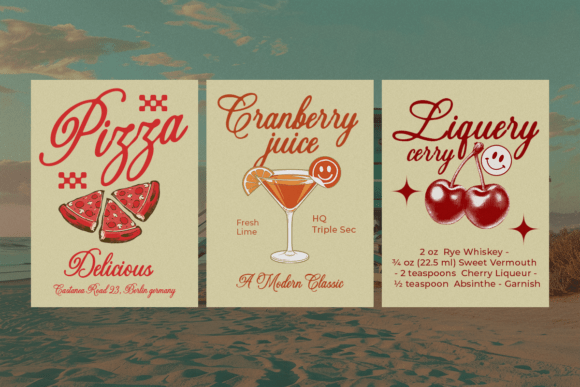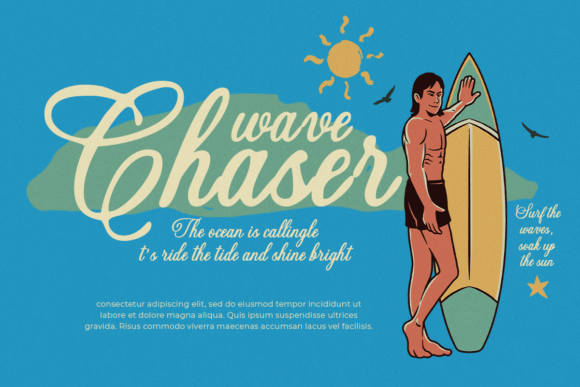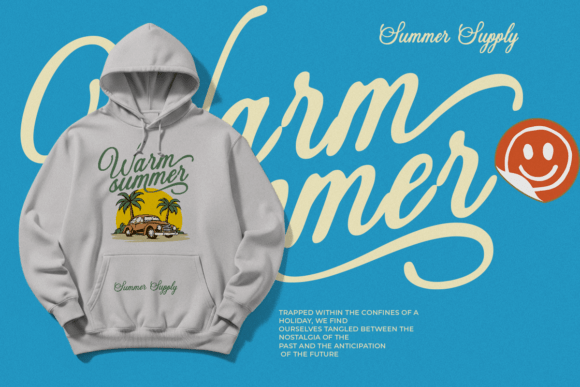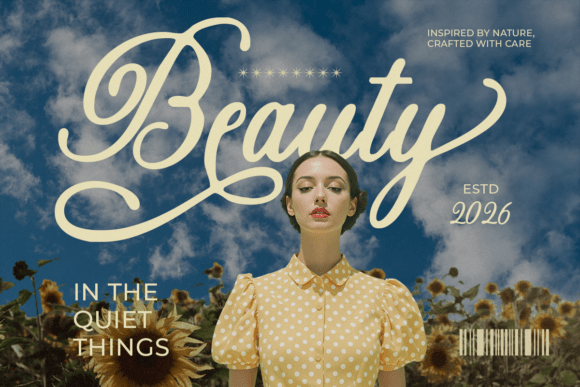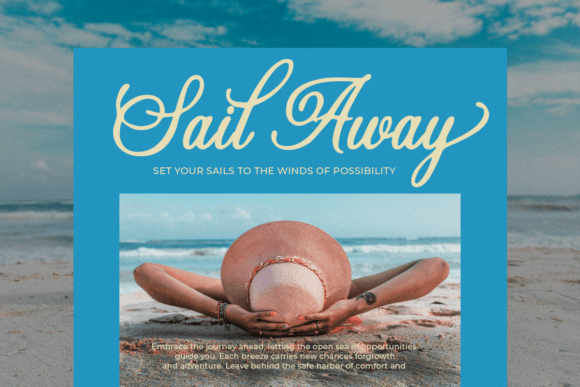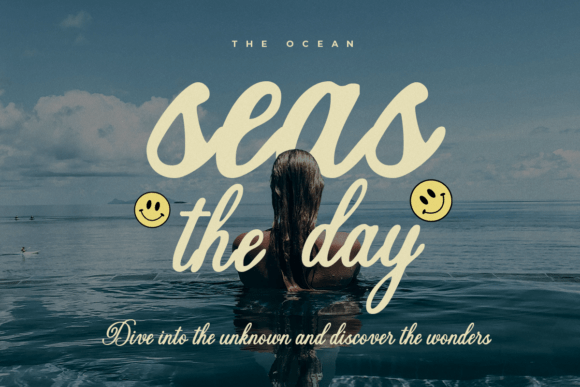
Introducing Ellegrin Font: The Perfect Blend of Retro Charm and Elegant Sophistication
Are you a designer or crafter looking for a font that can add a touch of personality and whimsy to your design projects? Look no further than Ellegrin Font, a bold, curvy script font that’s sure to turn heads. With its retro feel and elegant charm, Ellegrin is the perfect choice for creating eye-catching titles, artistic logos, creative branding, and playful posters that demand attention.
The Unique Characteristics of Ellegrin Font
Ellegrin Font is a handwritten script font that boasts a distinctive, curvy style that’s reminiscent of classic retro designs. Its bold lines and fluid curves give it a dynamic, expressive feel that’s perfect for adding a personal touch to any design project. Whether you’re looking to create a fun and playful vibe or a more sophisticated, elegant look, Ellegrin Font is the perfect choice.
Ellegrin Font is ideal for designers and crafters who want to create a unique and memorable impression. Its handwritten style adds a touch of personality and whimsy to any design project, making it perfect for a wide range of applications, including:
- Eye-catching titles and headings
- Artistic logos and branding
- Playful posters and flyers
- Creative packaging and labeling
Why Choose Ellegrin Font?
So why choose Ellegrin Font over other script fonts on the market? Here are just a few reasons why Ellegrin stands out:
- Unique and distinctive style: Ellegrin Font has a one-of-a-kind, curvy style that’s sure to turn heads and set your design projects apart from the crowd.
- Retro feel and elegant charm: Ellegrin’s retro-inspired design gives it a timeless, sophisticated feel that’s perfect for creating elegant and eye-catching designs.
- Handwritten style: Ellegrin’s handwritten style adds a personal and expressive touch to any design project, making it perfect for designers and crafters who want to create a unique and memorable impression.
- Versatile and flexible: Ellegrin Font is perfect for a wide range of design projects, from playful posters and social media graphics to artistic logos and creative branding.
Tips for Using Ellegrin Font
Here are a few tips for getting the most out of Ellegrin Font:
- Use it as a headline font: Ellegrin Font is perfect for creating eye-catching headlines and titles that demand attention.
- Pair it with a simple font: For body text, pair Ellegrin Font with a simple, easy-to-read font to create a striking contrast.
- Experiment with colors and textures: Ellegrin Font looks great in a wide range of colors and textures, so don’t be afraid to experiment and find the perfect combination for your design project.
Ellegrin Font is a bold, curvy script font that’s perfect for designers and crafters who want to add a touch of personality and whimsy to their design projects. With its retro feel and elegant charm, Ellegrin is the perfect choice for creating eye-catching titles, artistic logos, creative branding, and playful posters that demand attention. So why wait? Download Ellegrin Font today and start creating unique and memorable designs that stand out from the crowd!